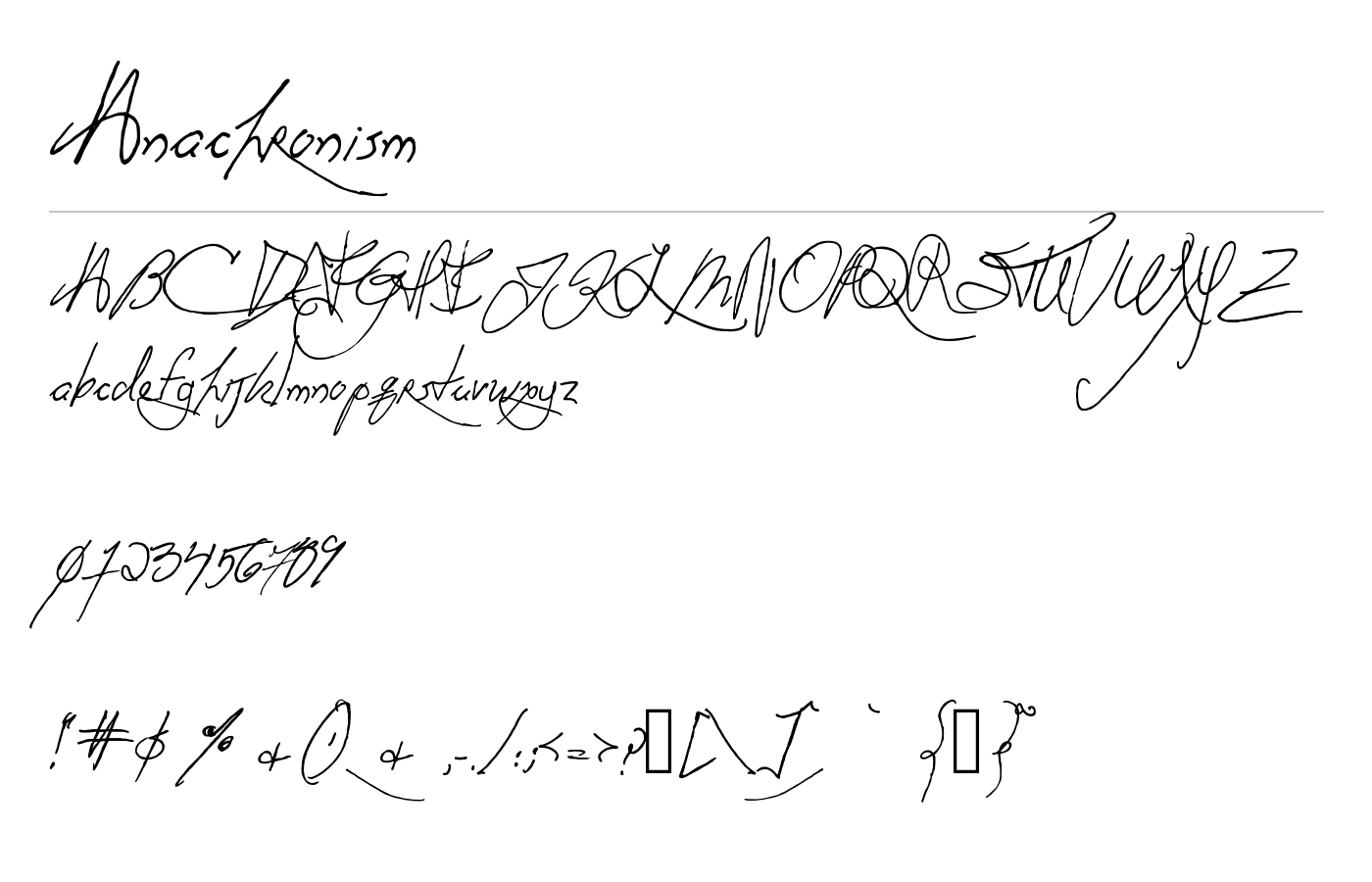
Anachronism is a highly expressive, handwritten script font that features thin, flowing lines with an irregular, whimsical style. Its slender, almost chaotic letterforms convey an artistic and personal touch, making it ideal for creative projects that seek a unique, vintage-inspired or avant-garde vibe. This font works best in logos, invitations, or editorial designs where originality and a distinctive hand-drawn feel are desired.
Anachronism Font